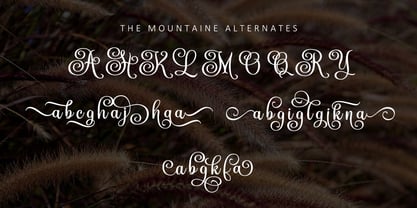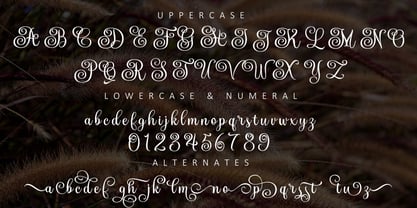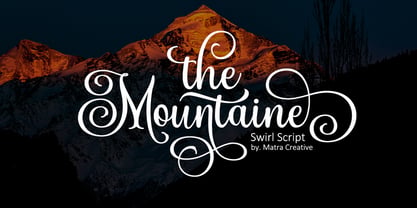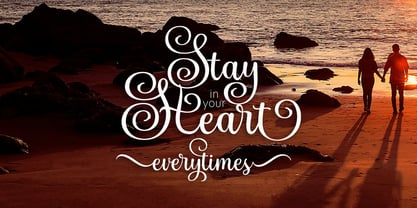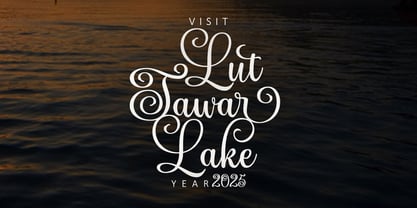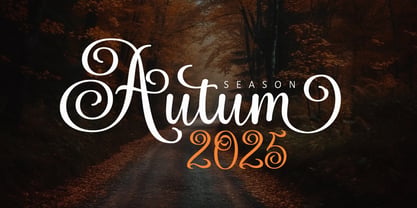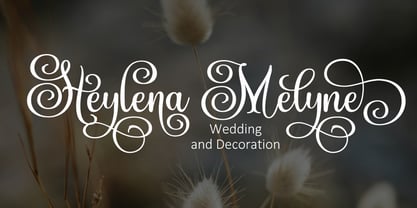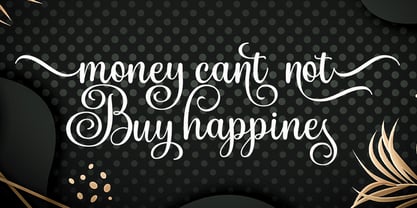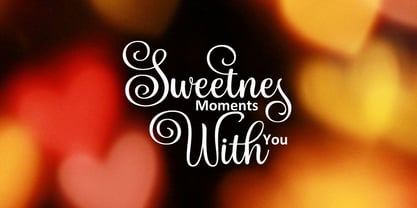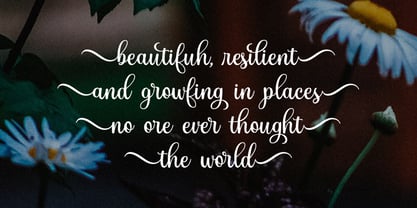
The Mountaine
by Matra Creative
The The Mountaine Font Family was designed by May Adifarzan muis and published by Matra Creative. The Mountaine contains 1 styles. More about this family
Introducing The Mountaine – An Elegant Modern Script Font
The Mountaine is a beautifully crafted modern script font that exudes elegance and sophistication. With its flowing curves and graceful letterforms, The Mountaine adds a romantic and stylish touch to any design. Whether you're working on branding, wedding invitations, product packaging, or social media graphics, this font delivers a refined aesthetic that elevates your project. Perfect for use in photography overlays, stationery, advertising, and other creative applications, The Mountaine brings a sense of charm and luxury to both digital and print media. Its versatile design makes it a great choice for adding a personal and elegant flair to any romantic or high-end visual concept.